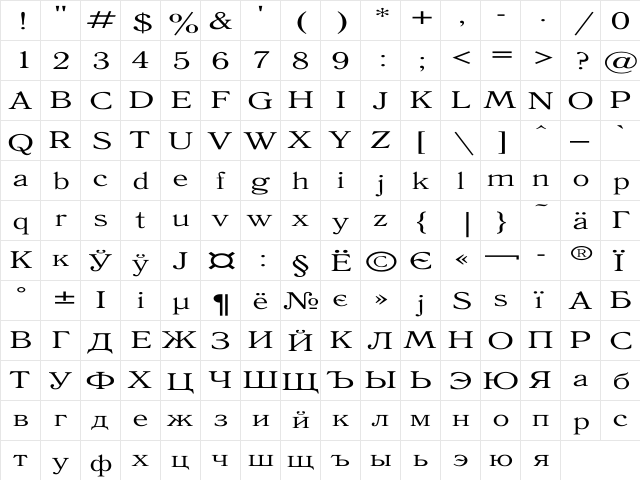
Antiqua Expanded Regular
Design Context for Antiqua Expanded Typeface
Antiqua Expanded offers clean, dependable letterforms without strong stylistic allegiance, making it a practical choice for designers who need flexibility.
Pro Tip: Pair Antiqua Expanded with a font of contrasting weight or personality to build a more expressive typographic hierarchy.